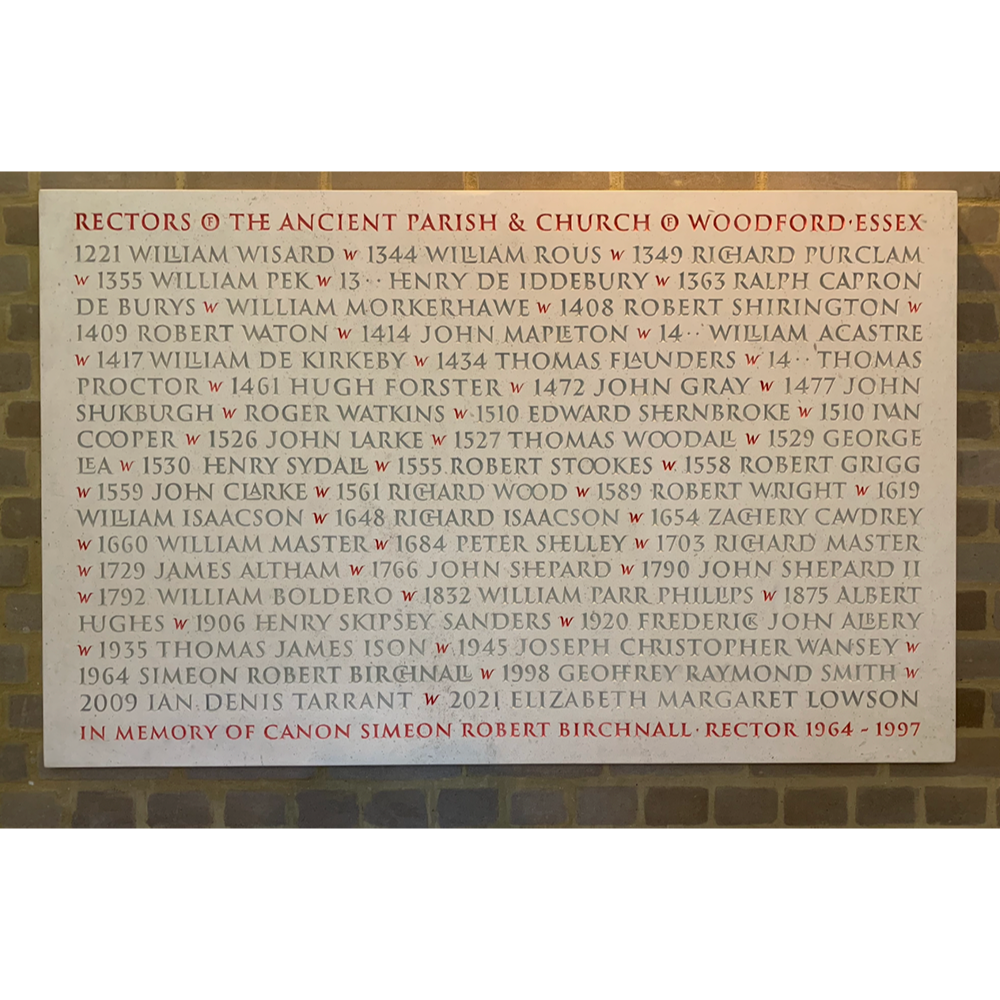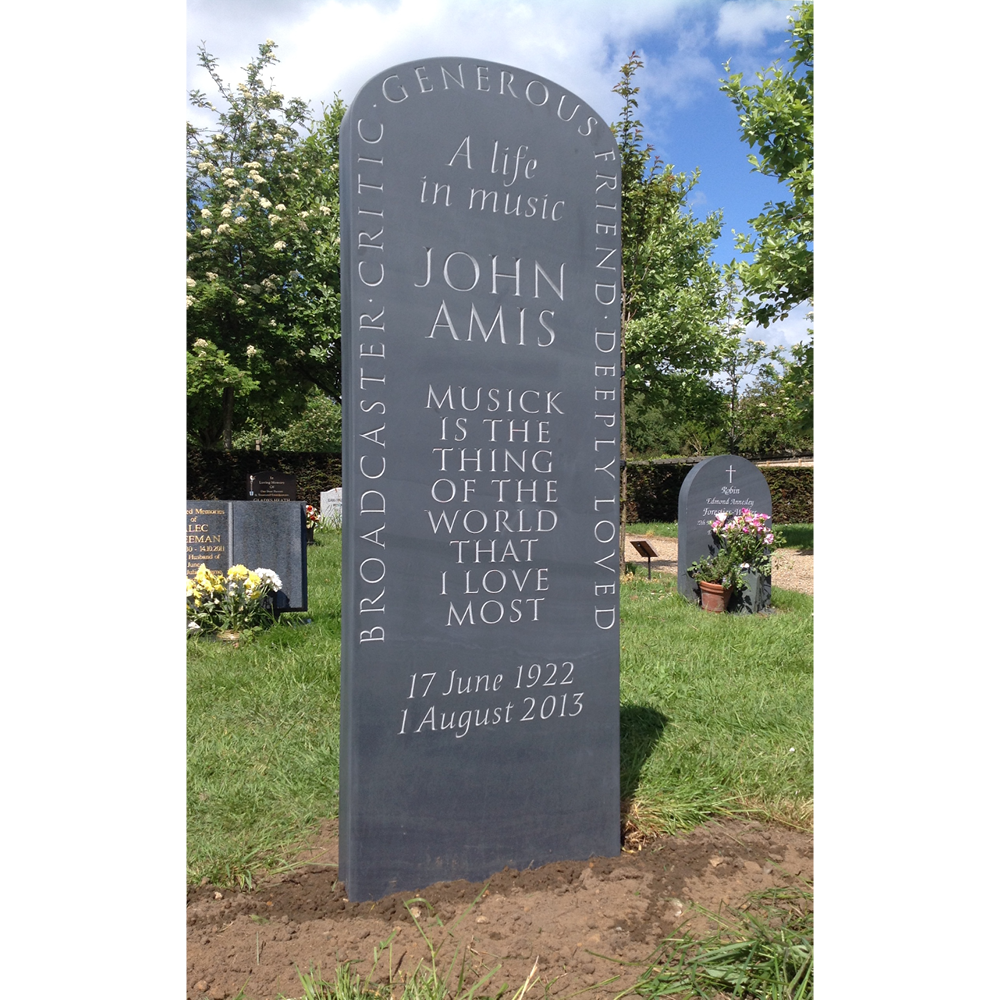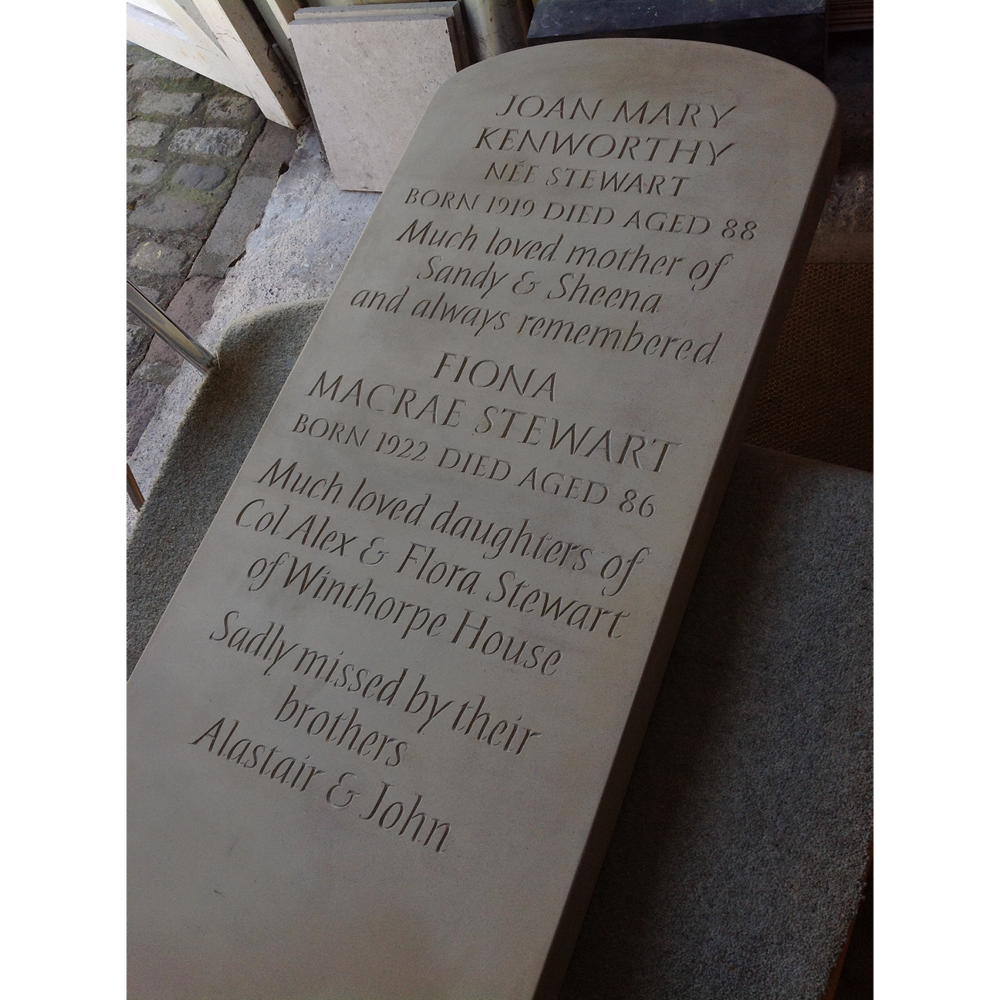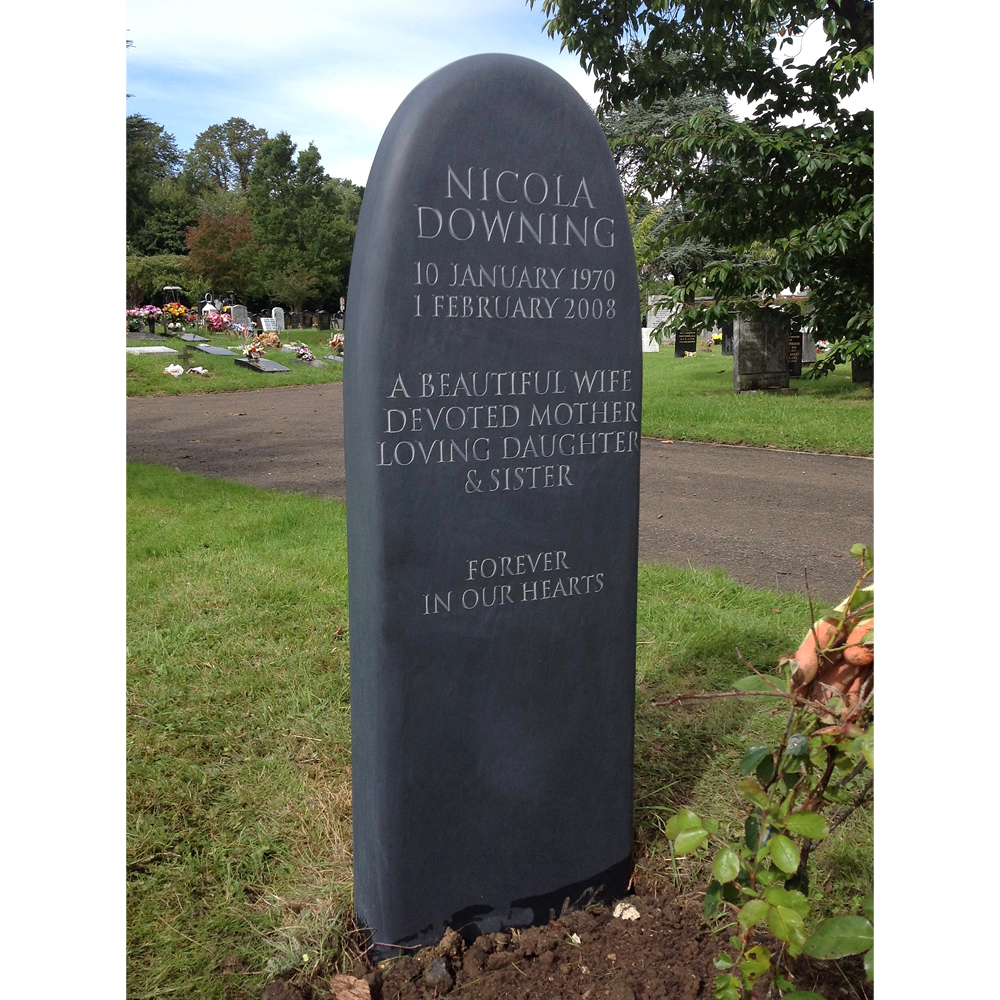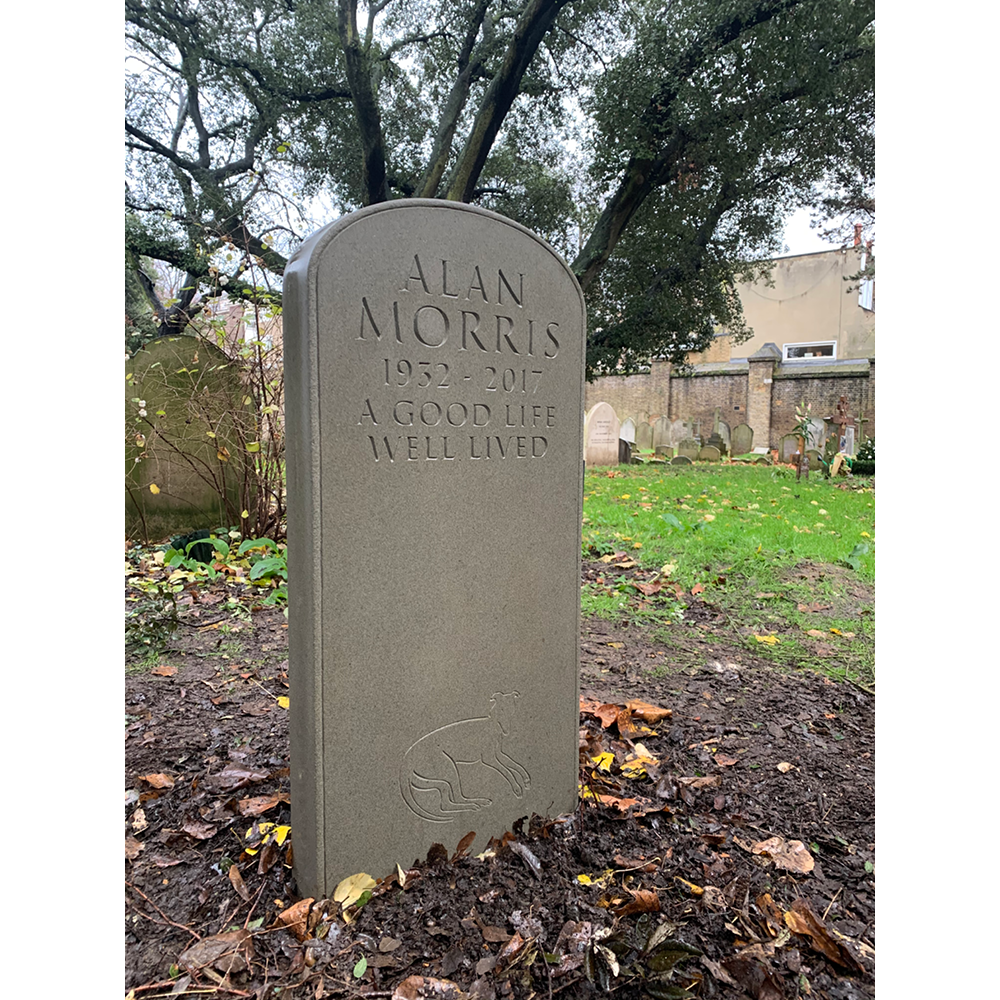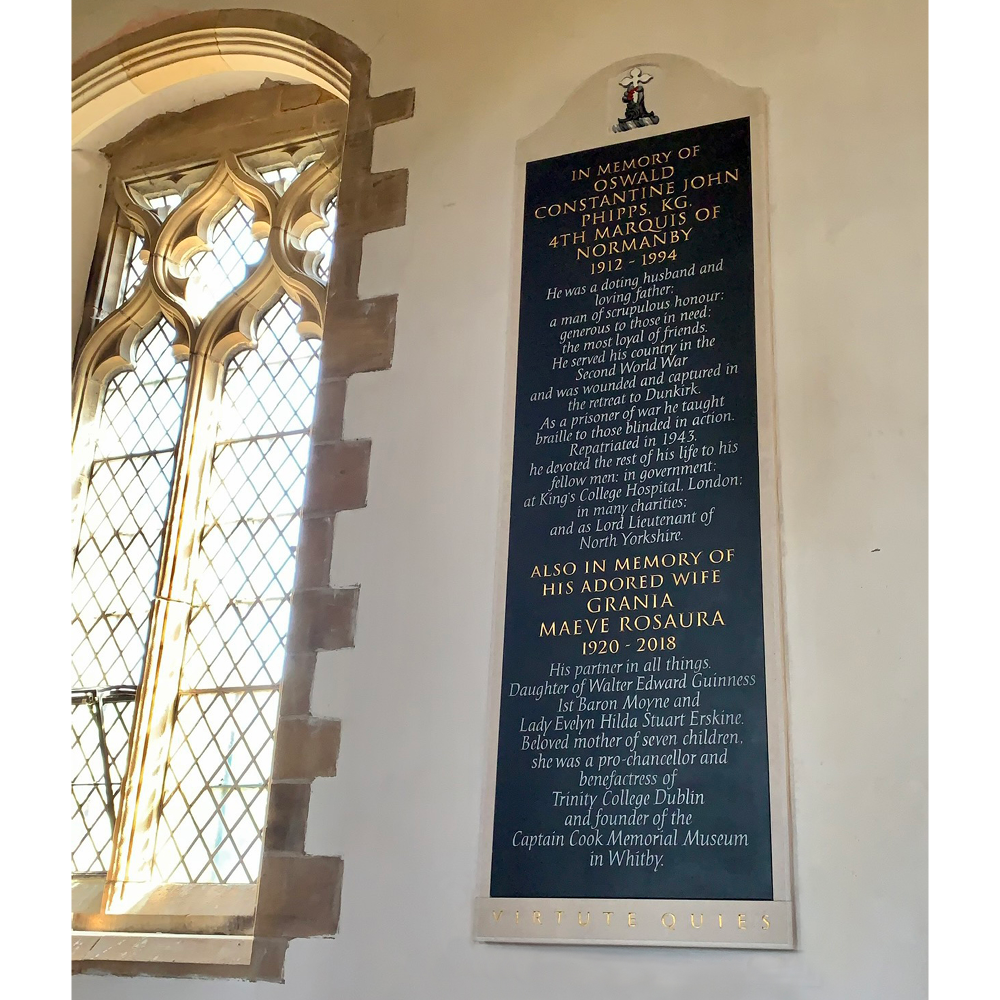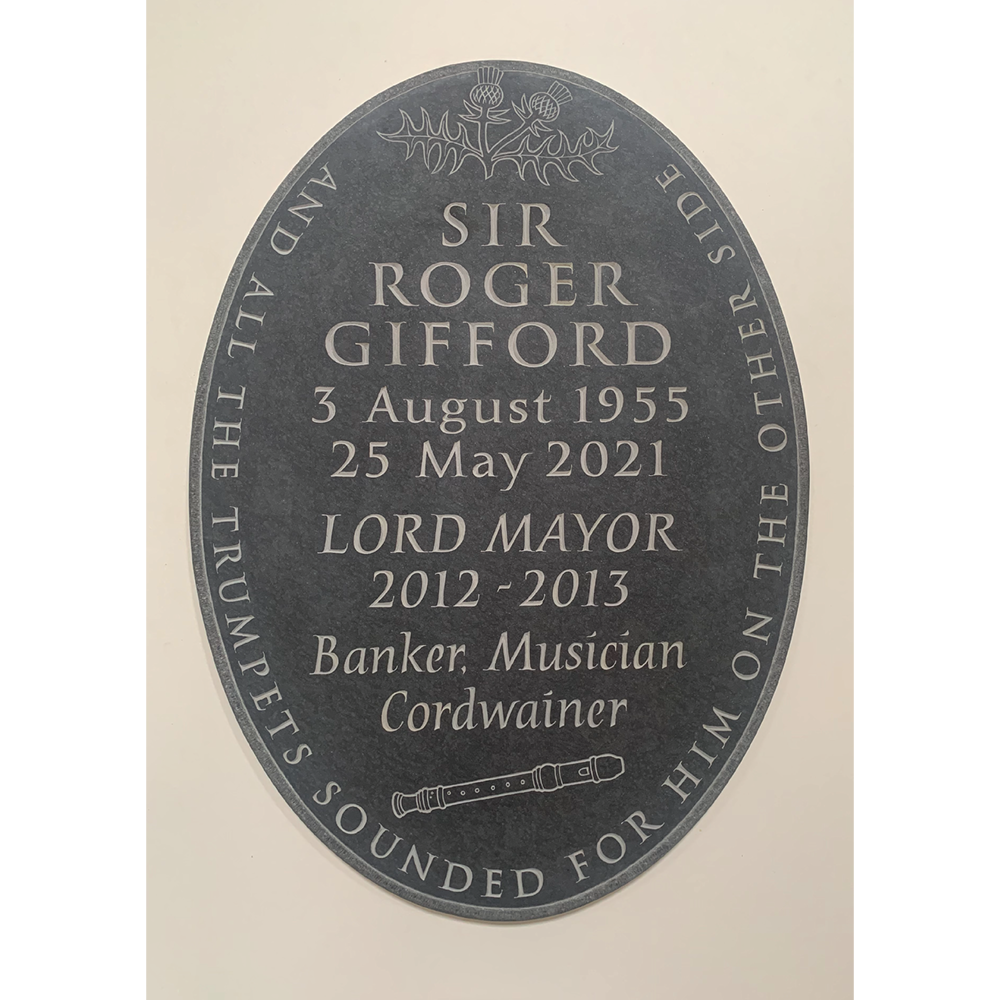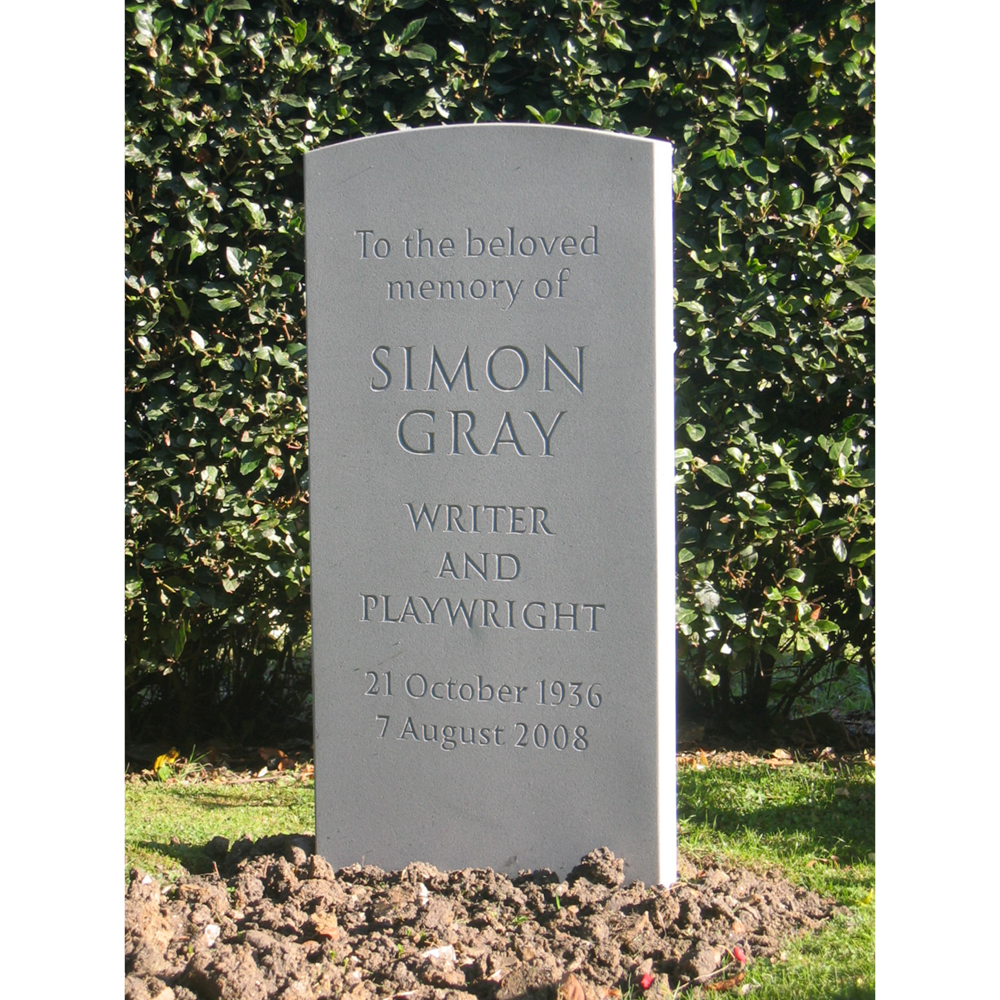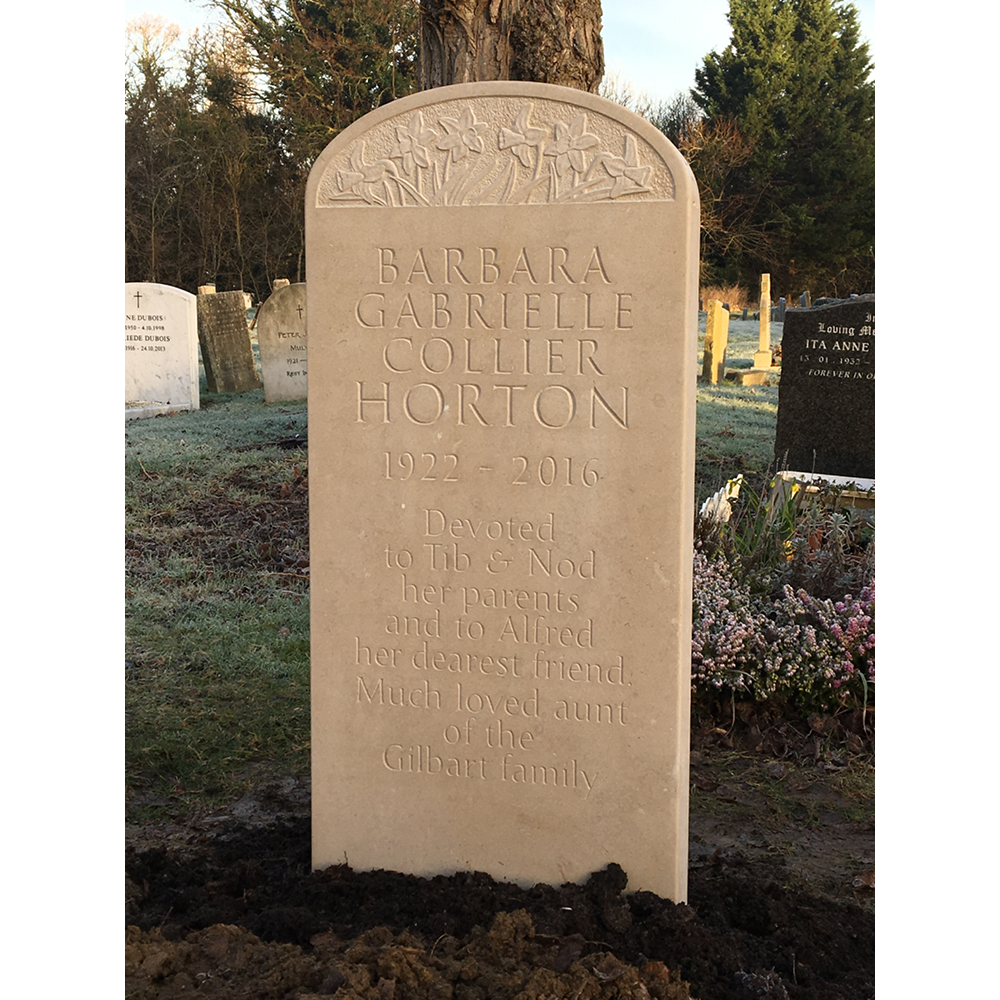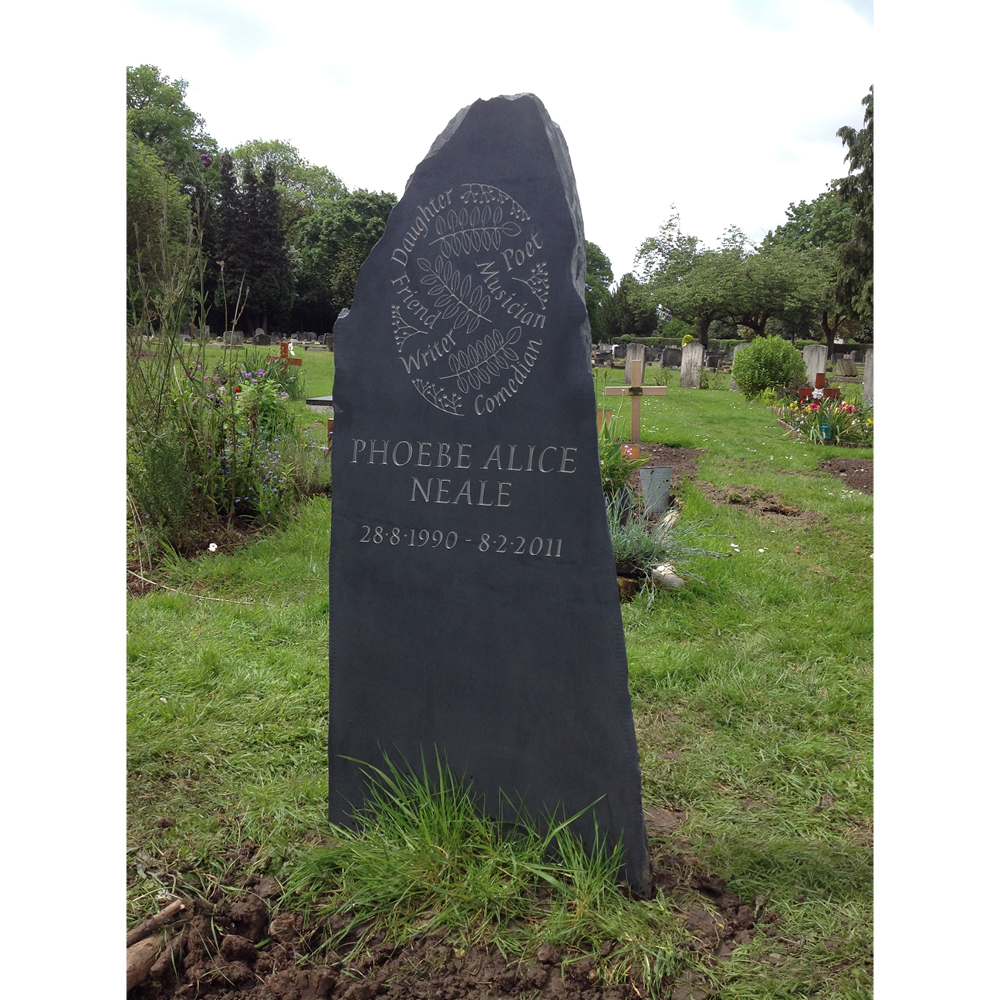
Emily Hoffnung
“It never ceases to amaze me how the meaning of a piece of poetry or a quotation can be magnified when drawn in beautiful letters, set out in an interesting and sensitive way and carved into a piece of stone. In the same way a person's name can take on a resonance when cut into this extraordinary and varied, age old material”.
After studying letter carving at City and Guilds Art School I worked for Martin Cook for 2 years and then Richard Kindersley for five years, after which setting up my own letter carving workshop in west London in 2007. I have completed many memorial and architectural commissions and have also carved inscriptions of my own.